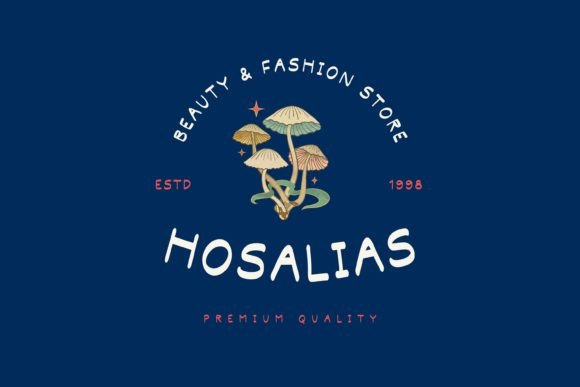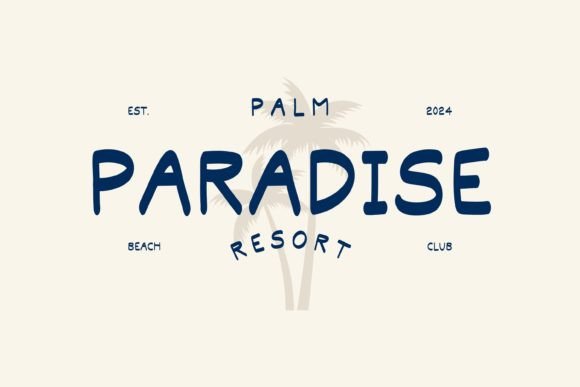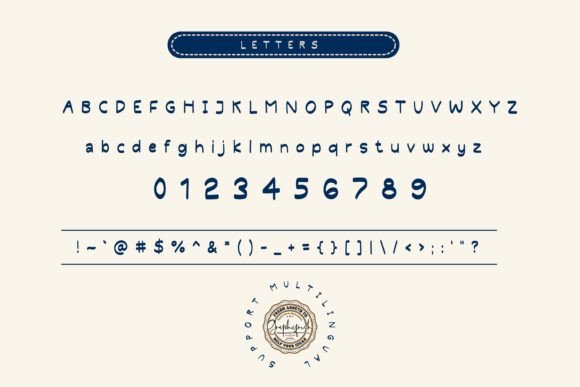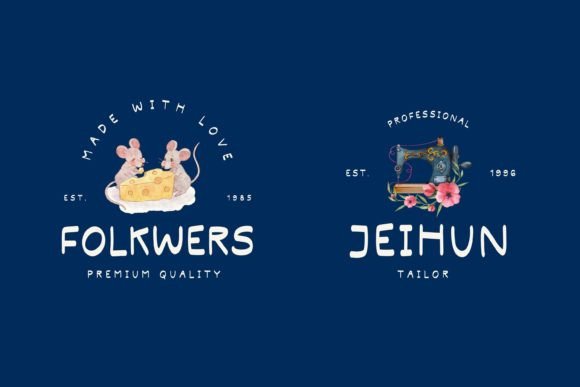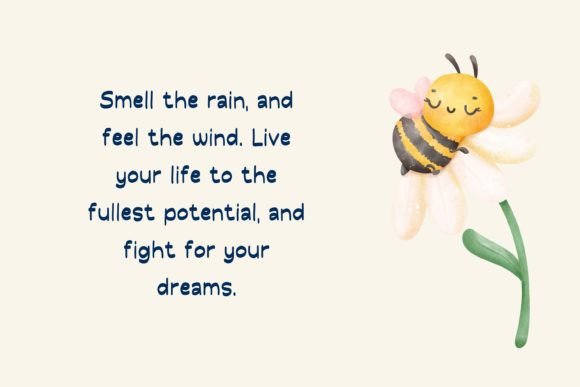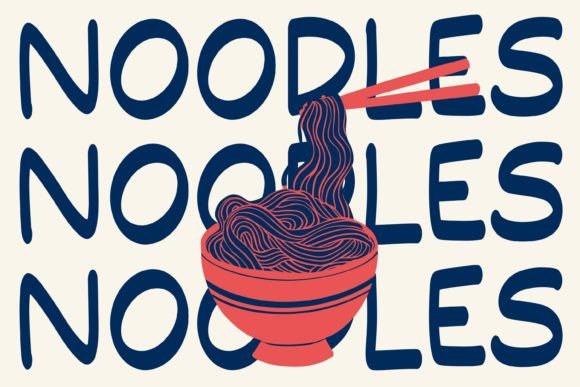
Introduction to Oradel Font
Oradel offers a unique combination of a clean, sans-serif display style with a touch of handwritten charm.
This font is particularly suited for projects that require a vintage and letterpress feel, providing a classic yet approachable look It’s ideal for eye-catching headlines, signage, and branding that demand a personal and distinctive touch.
Key Features of Oradel Font
Why Choose Oradel Font?
Oradel Font offers exceptional quality and versatility, making it a valuable addition to your design toolkit. Whether you’re creating for personal projects or commercial use, Oradel Font delivers professional results.